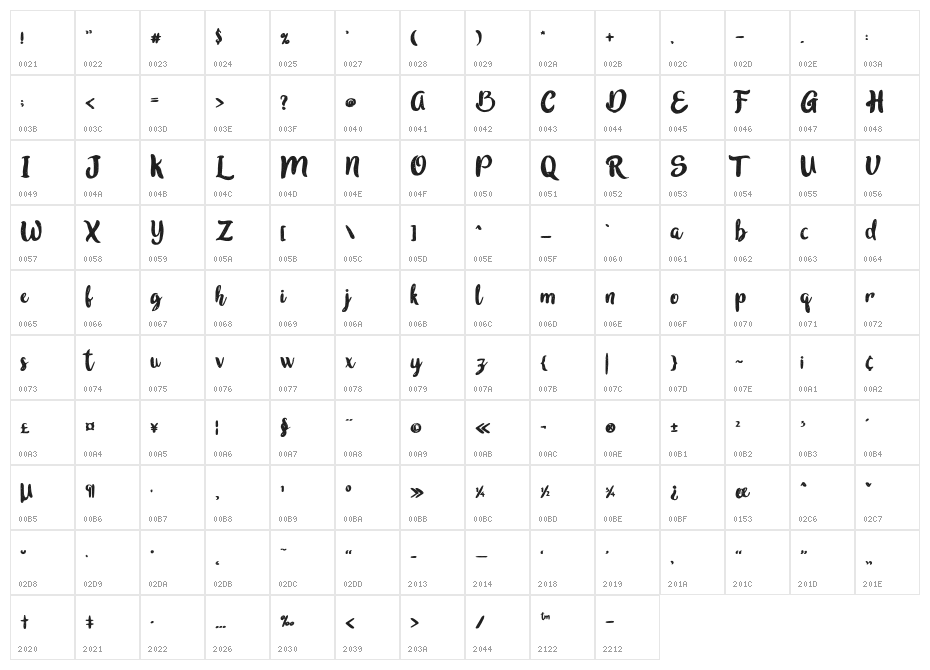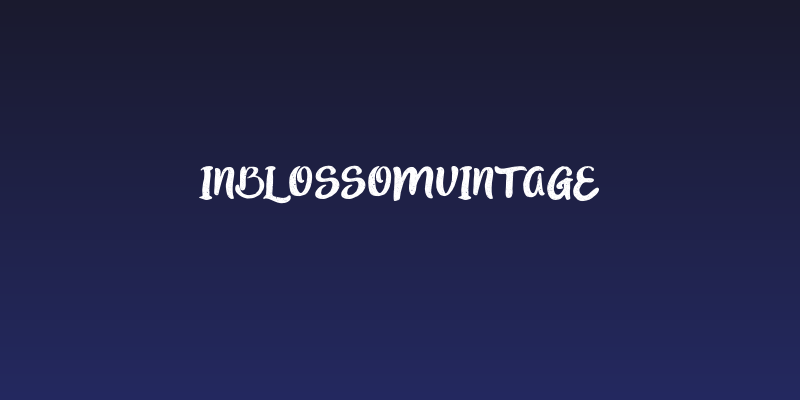
inblossomvintage Font
inblossomvintage Description
This font features a bold, playful script style with a vintage flair. The letters are rounded and have a hand-drawn appearance, giving them a warm and inviting feel. The texture is slightly distressed, adding to the retro aesthetic. The uppercase letters are bold and prominent, while the lowercase letters maintain a consistent flow with subtle curves. The numbers and special characters follow the same style, ensuring uniformity across all elements. This font is ideal for projects that require a touch of nostalgia and personality.
Overall StyleVintage
Proposed ProjectsIdeal for vintage-themed designs, posters, branding, and invitations.